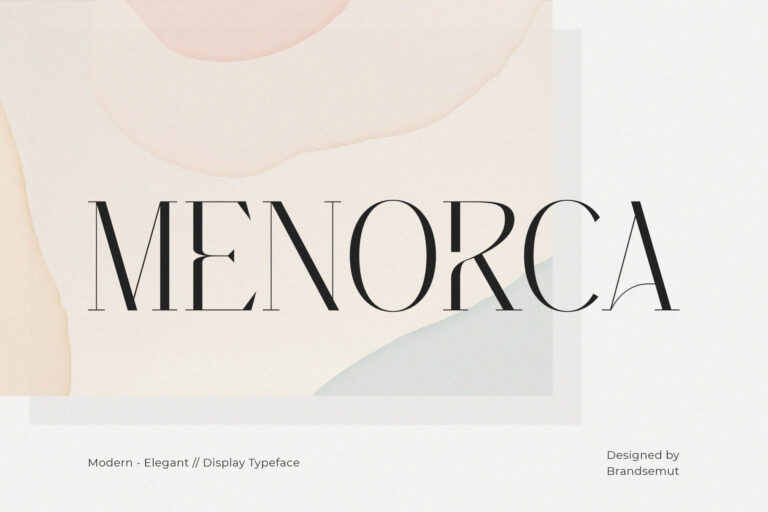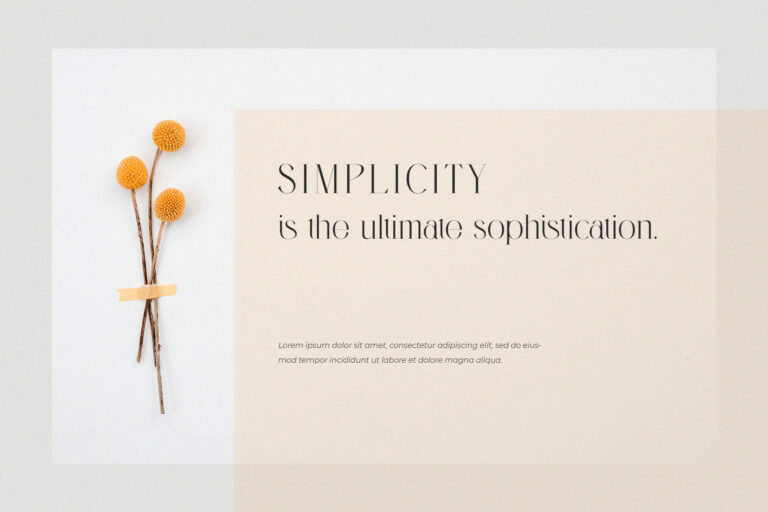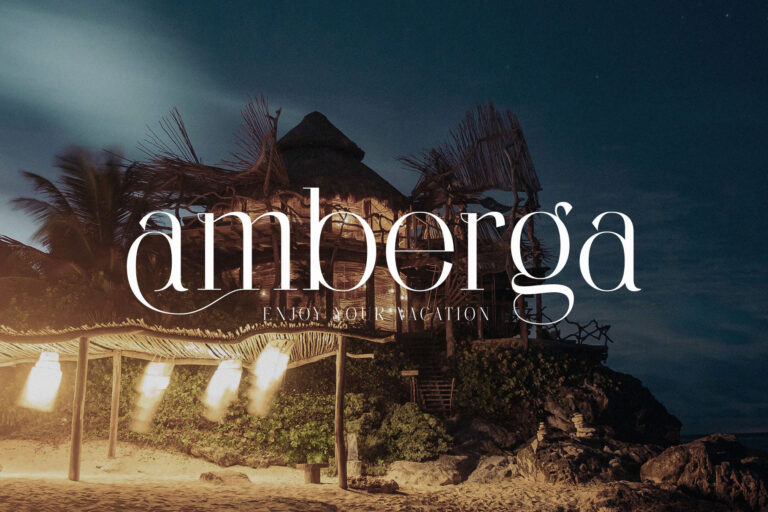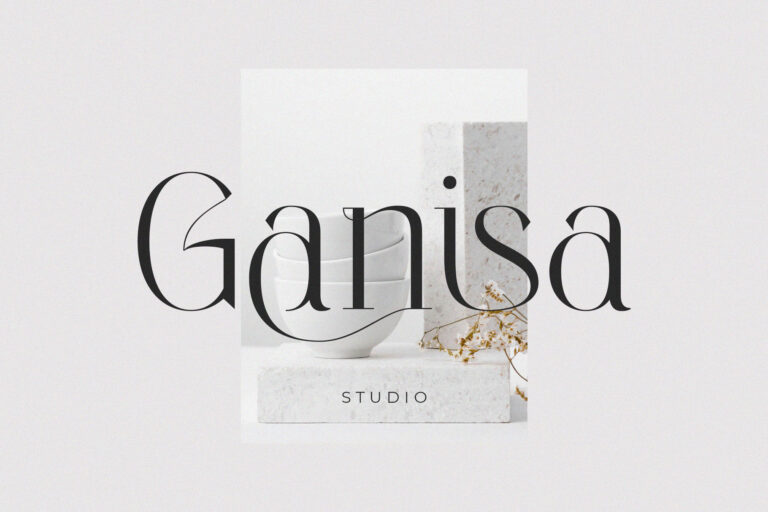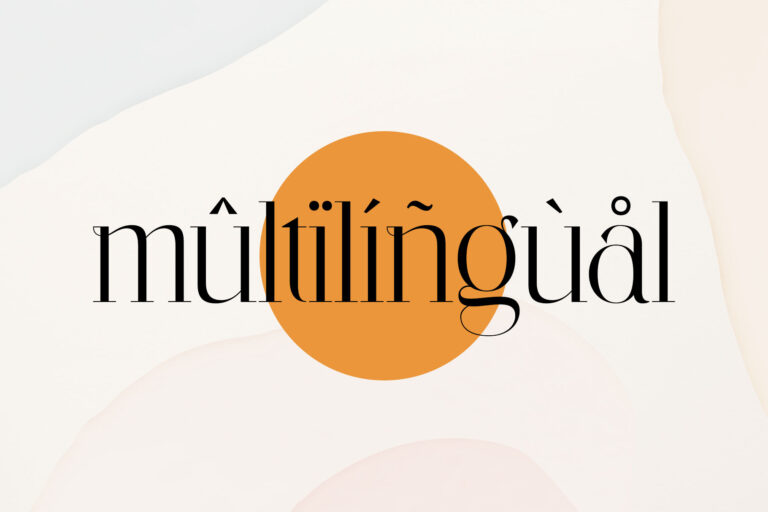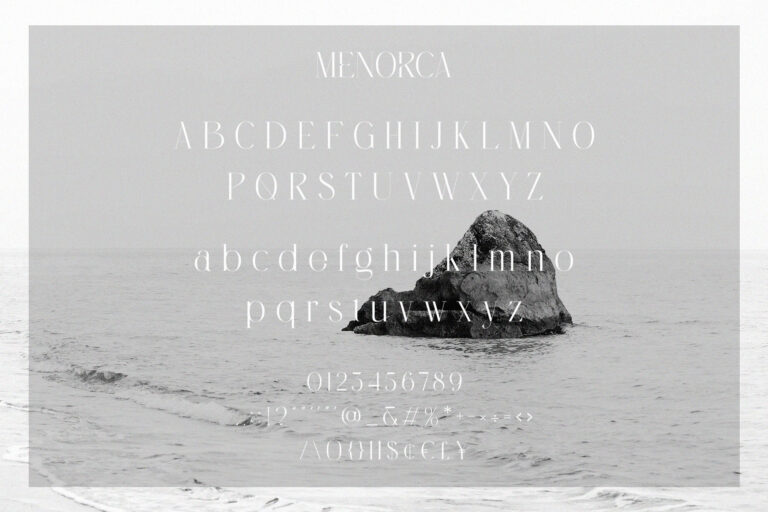
- Menorca – Stylish Typeface
Introducing our new “Menorca”, Modern ligature typeface with Unique, Classy and Stylish. Is perfect for branding, logos, invitation, master heads, and more.
Menorca Features :
– Ligatures
– Multilanguage
– Alternates